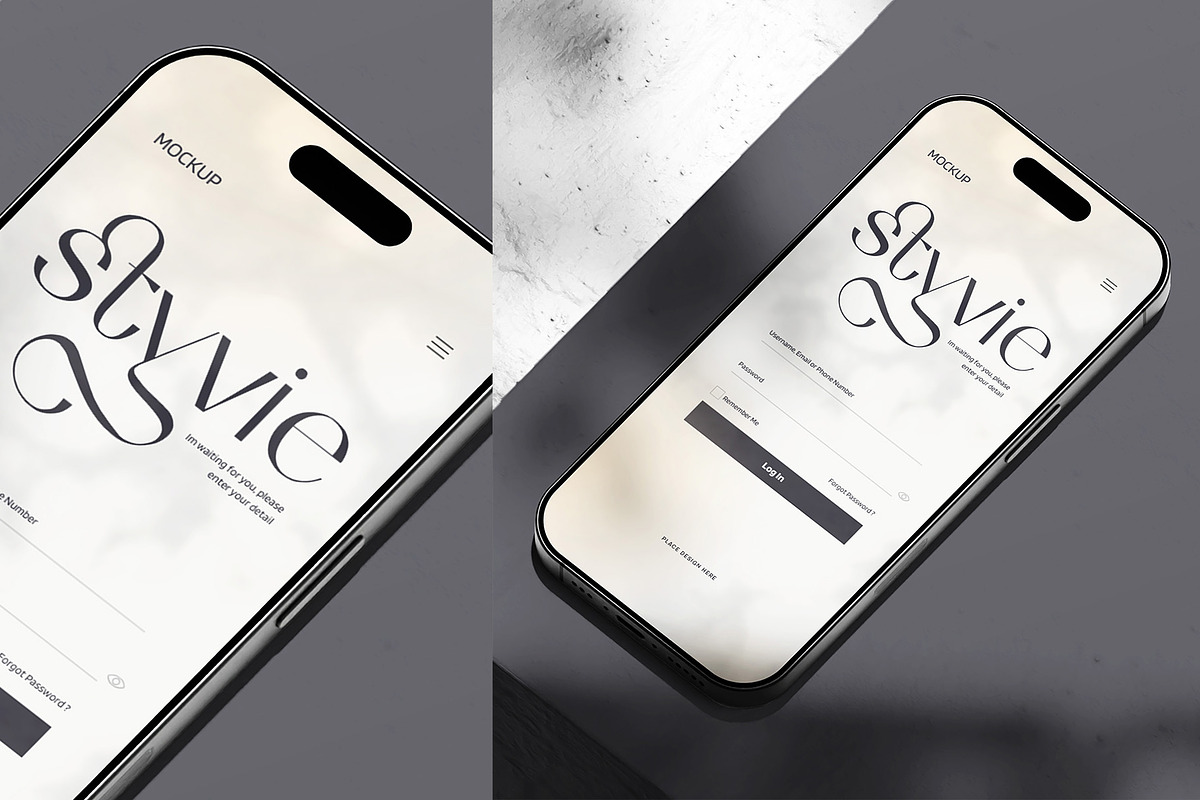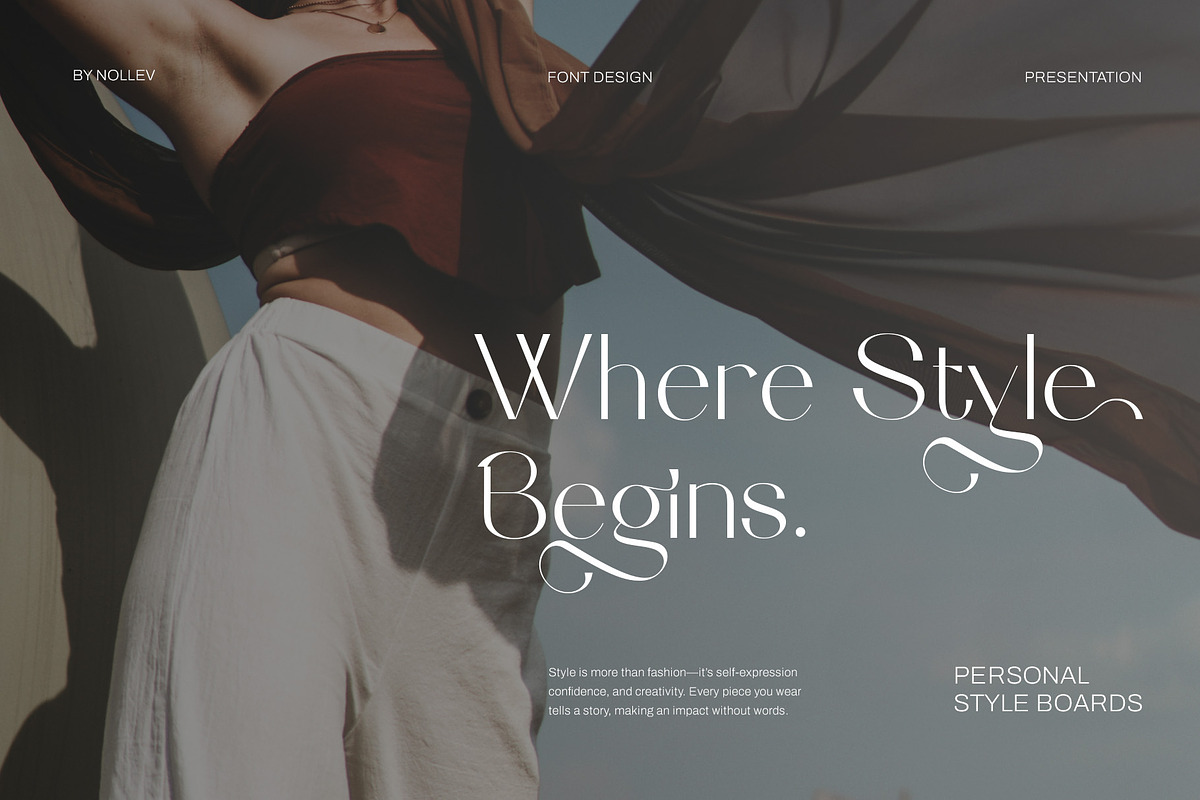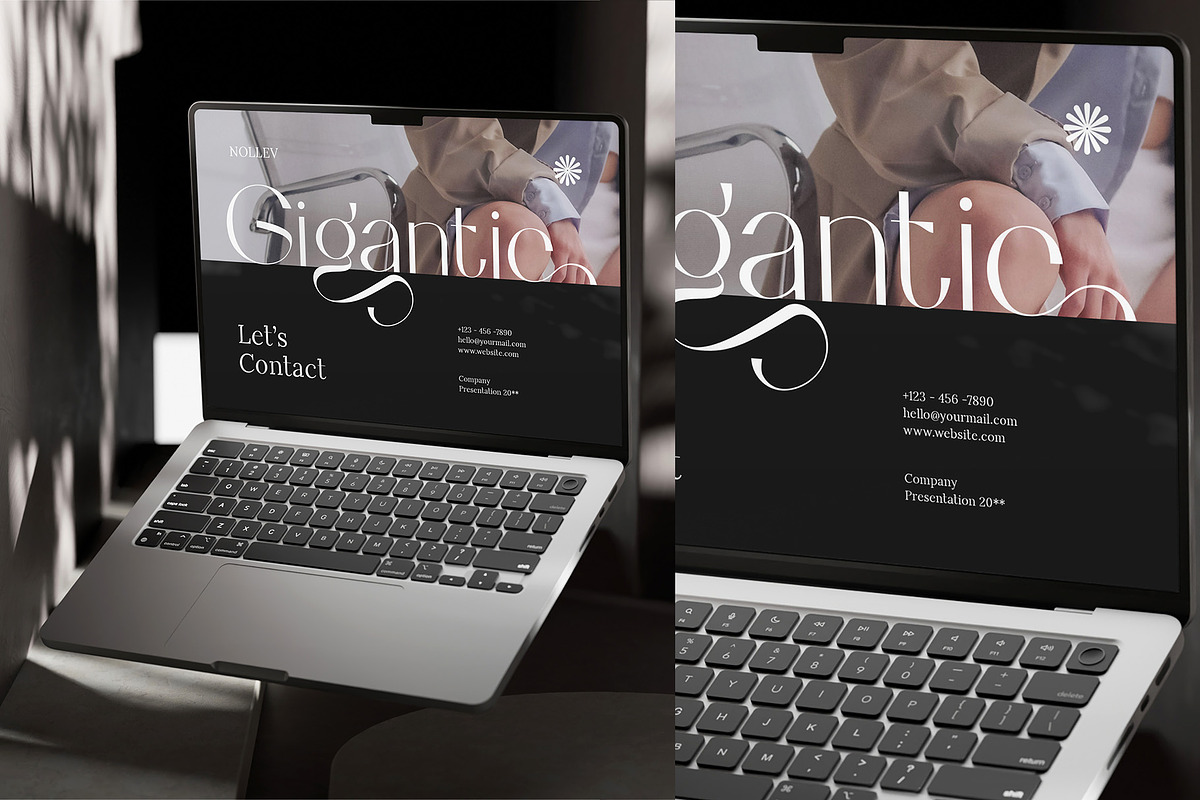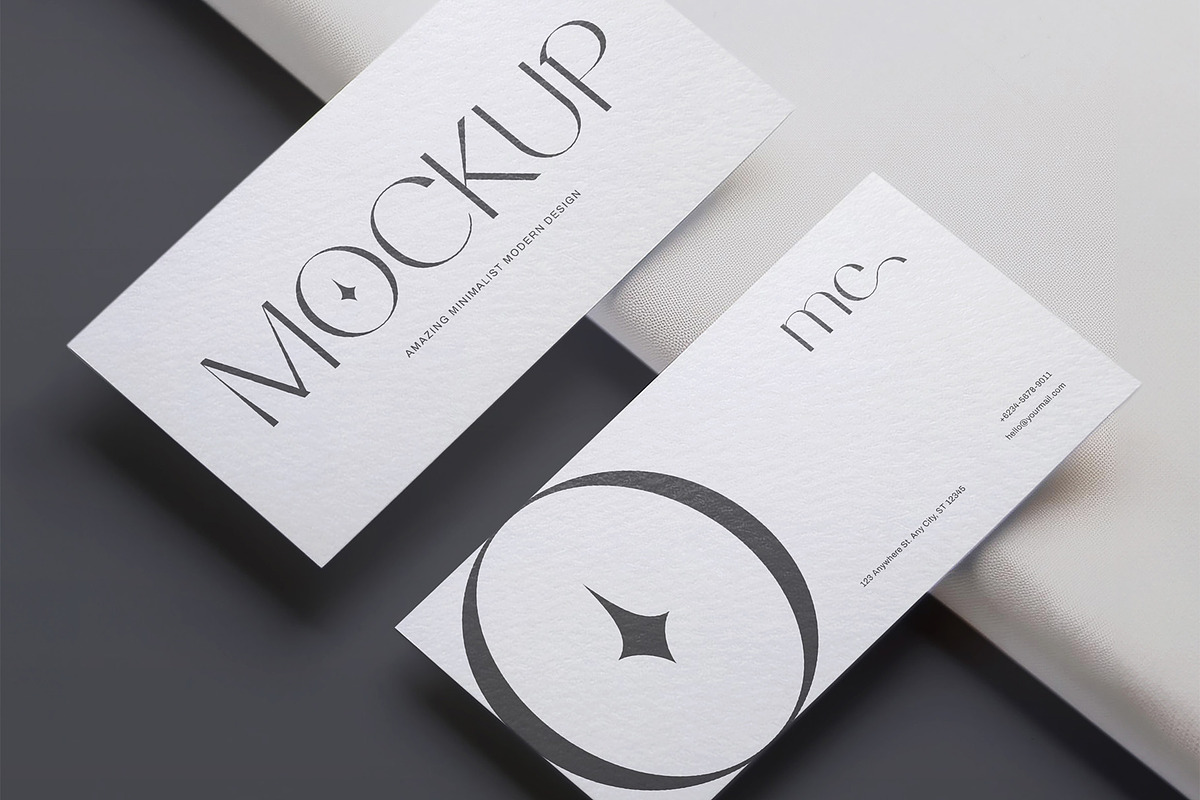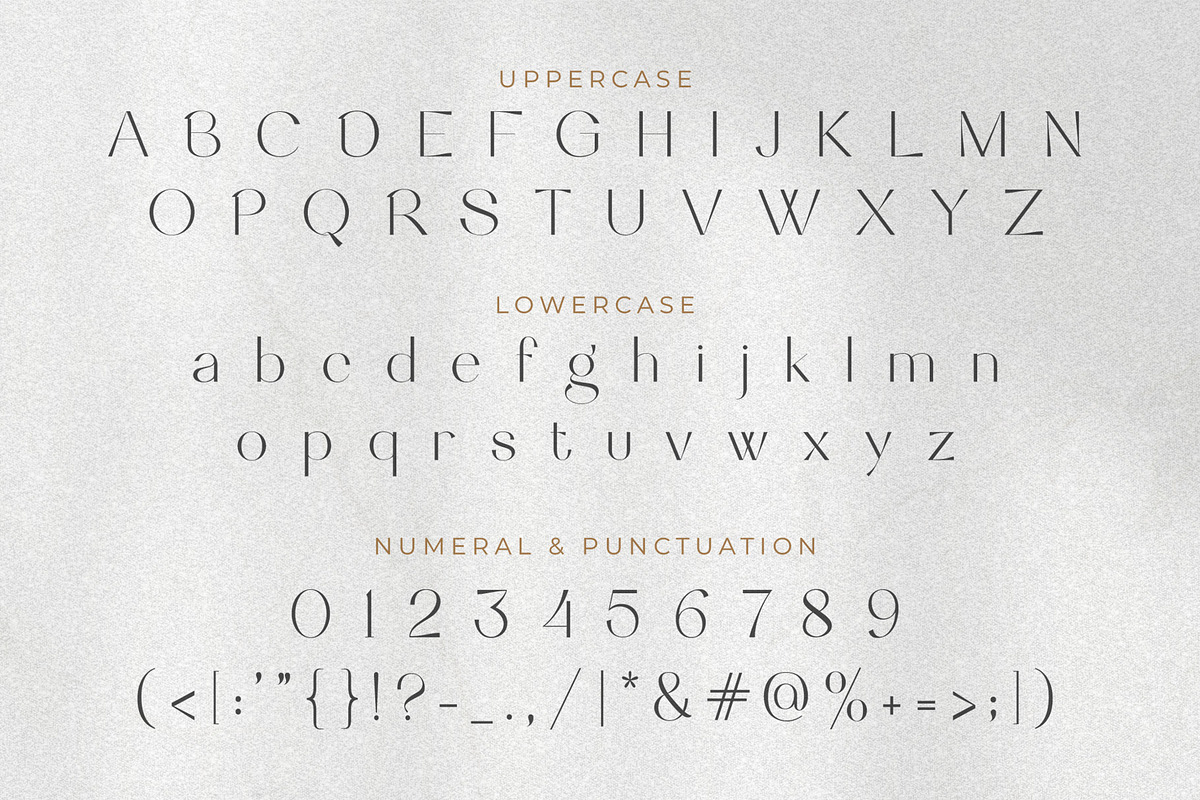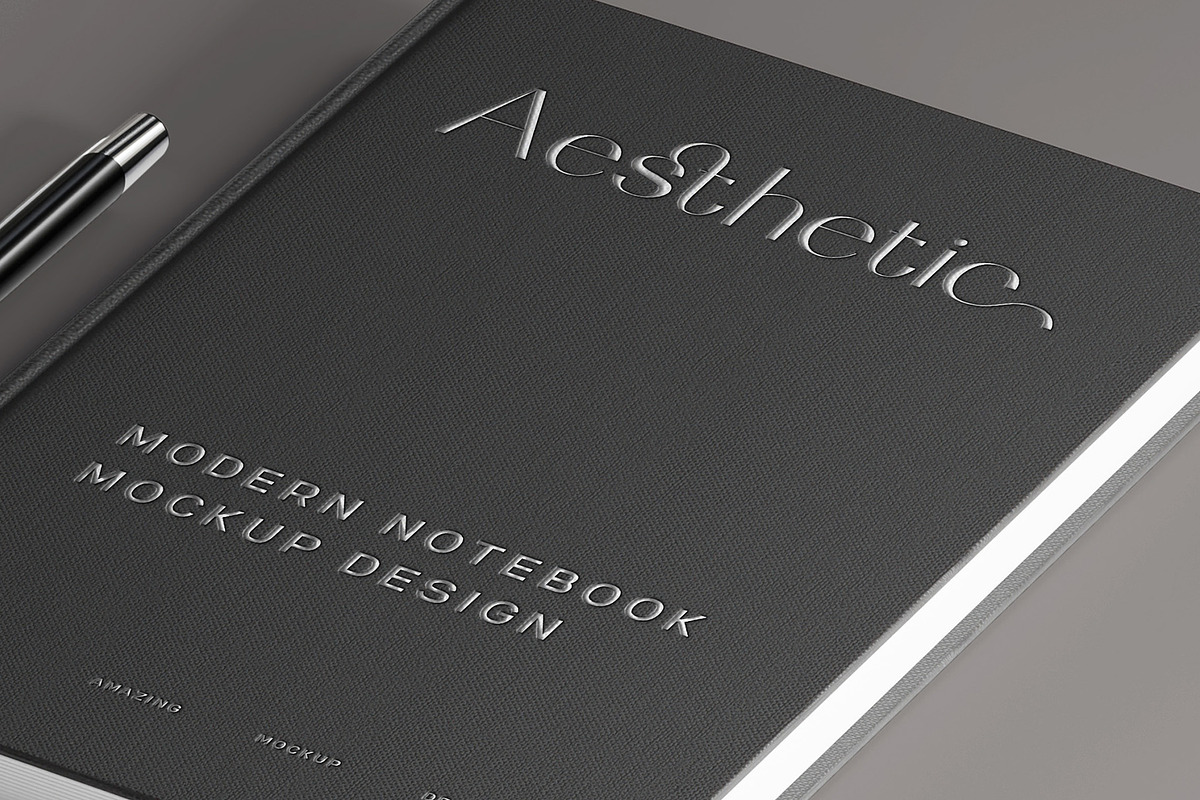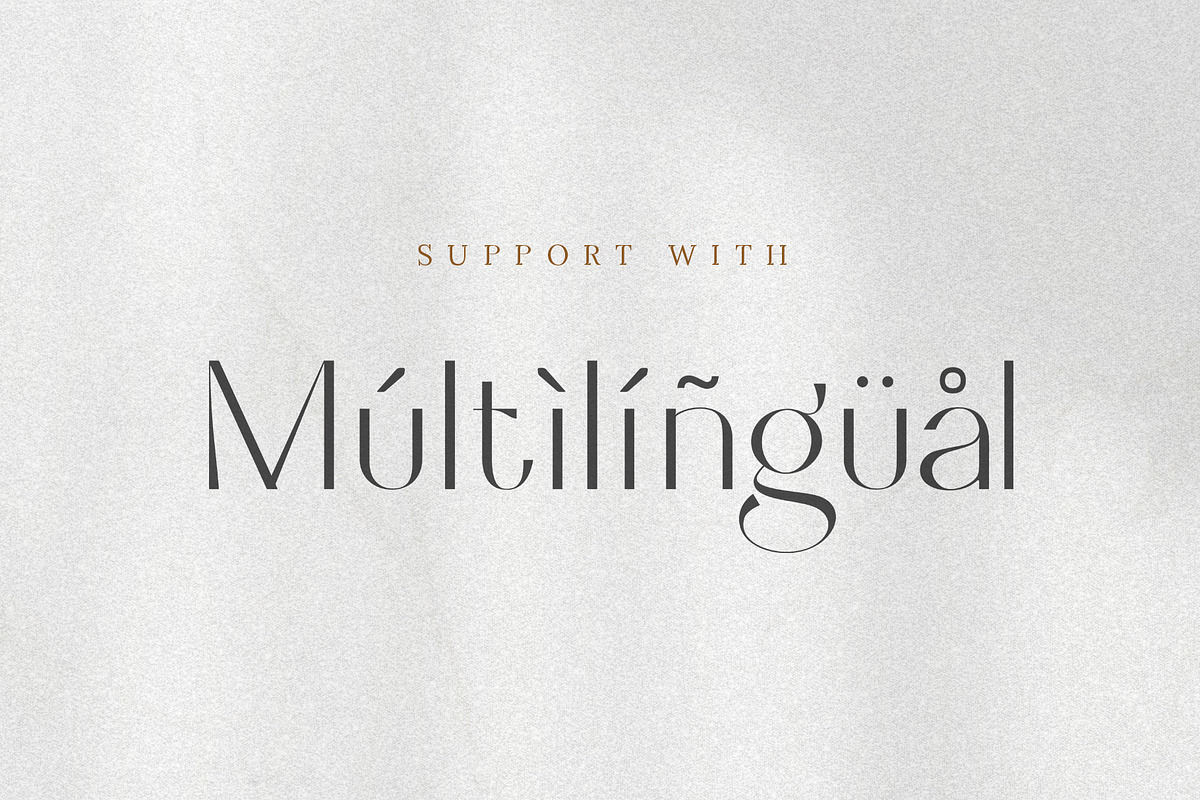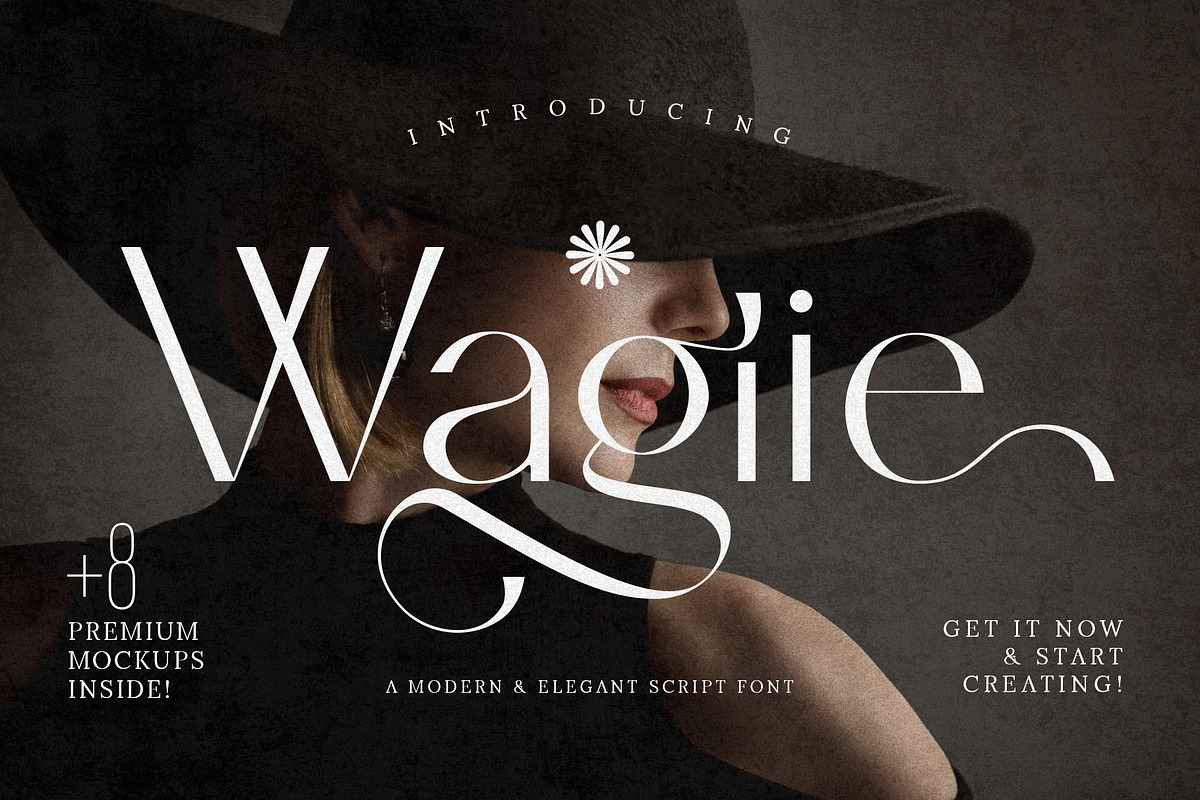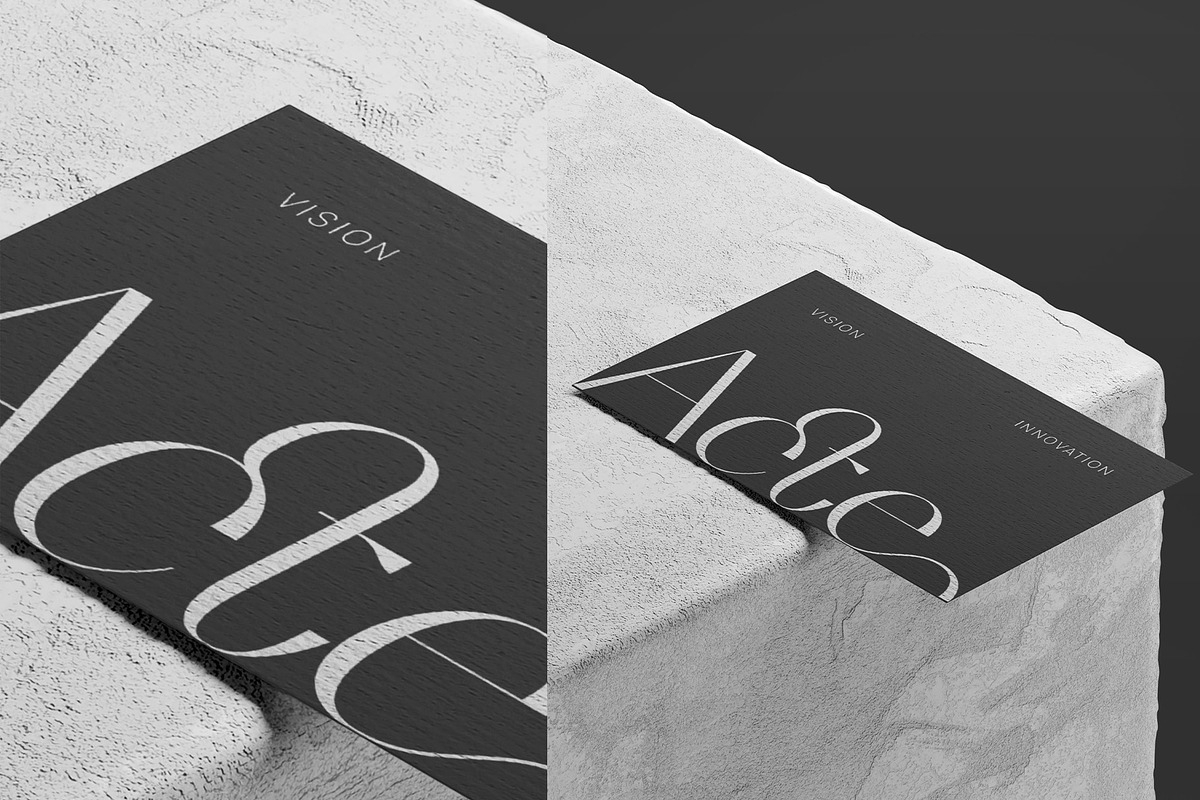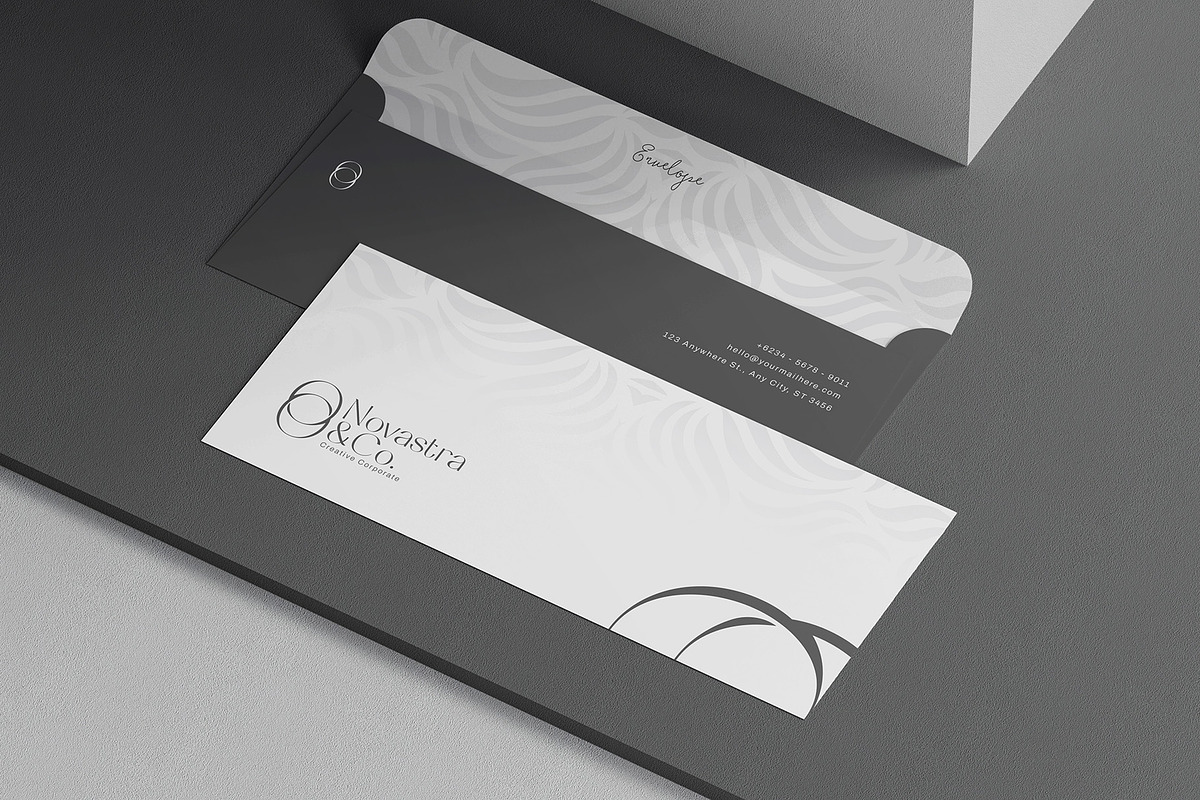
Wagiie – Serif Font with Free Mockup
Showcase your branding designs with a professional and elegant touch using Wagiie – Modern Serif Font + Mockup Bundle. This package combines a premium modern serif font with realistic mockups, perfect for presenting logos, brand identity, and print designs.
- Wagiie – Modern Serif Font – A sleek and modern serif font, ideal for branding, editorial, and high-end designs.